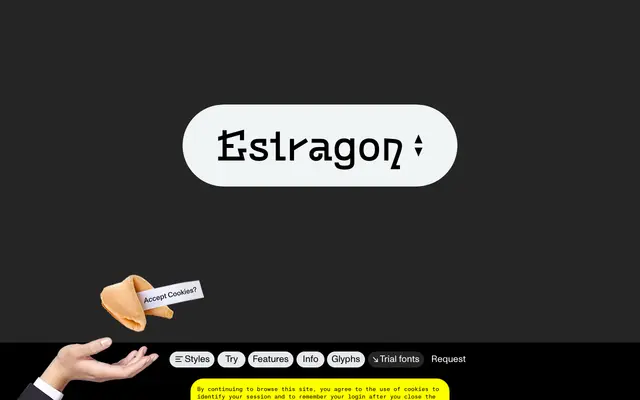
ABC Estragon
A 19th-century ornamental wood-letter display redrawn in 2017, with three combinable styles (Wildstyle, Arrow, Bubble).
An ornamental wood-letter display by Fabian Harb and Daniel Chessari, redrawn from a circa-1890 Harrild & Sons specimen for contemporary use. Three distinctive styles, Wildstyle, Arrow and Bubble, can be freely mixed at the level of individual characters, alongside a base cut, across six weights from Thin to Heavy. Sam de Groot used it on the identity for Condo New York and described it as Schwitters-meets-Wildstyle.
Dinamo describes Estragon as a redrawing of an ornamental headline wood type from Harrild & Sons' New & Abridged Specimens of Wood-letter (circa 1890), spotted on @typeTFA, with three combinable styles (Wildstyle, Arrow, Bubble) plus matching weights.